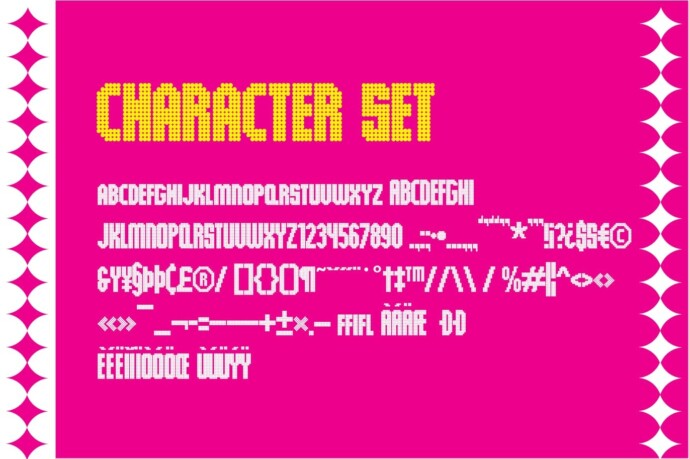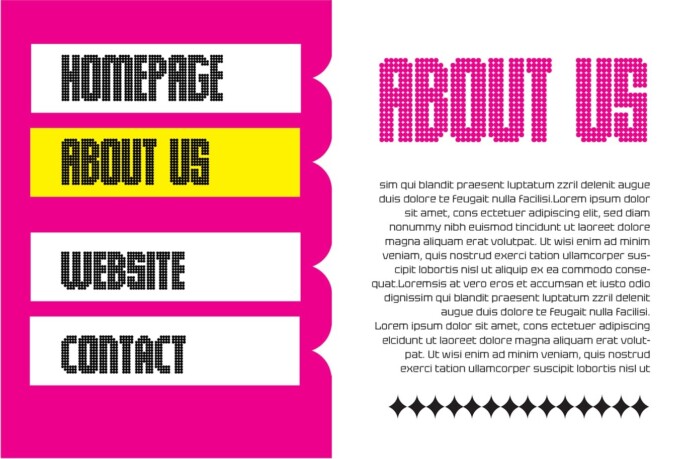
Headston Pixel Font
Designer: curatedtype
Headston Pixel Font is a great choice for any creative activity, retro or vintage design, lifestyle design such as logos, headline, cover, branding, display, business card, magazine, poster, film/movie and more.